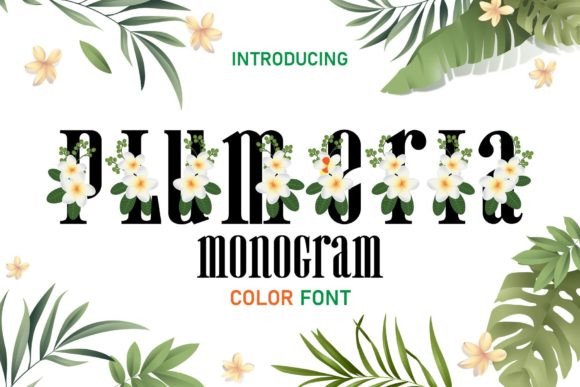
Behold, the Plumeria Monogram Font is your passport to a world of vibrant charm! Fox7's brainchild, this font is a kaleidoscope of hues, perfect for conjuring up that summer feeling, with its infectious brightness and captivating beauty.
Adorn your wedding invitations and stationary with its radiant colors, igniting a spark that will illuminate your special day. Imagine your social media posts brimming with charisma, or your greeting cards bursting with warmth as this font's allure captivates and delights.
Unleash its magic in crafting logos that radiate joy or branding that emanates energy. Let it be the muse that inspires your creative endeavors, transforming them into masterpieces that demand attention. See your designs leap off the screen with a vibrancy that's magnetic, leaving a lasting impression on all who behold it.
This Plumeria Monogram Font isn't just a font; it's a gateway to expression, a tool to unleash your creativity, and an ally in your quest for captivating designs. It's more than just a collection of letters; it's an invitation for your imagination to soar.
Dive into the world of color with the Plumeria Monogram Font and embark on a journey of artistic discovery. Embrace its versatility, let your creativity flow, and watch as your designs blossom into resplendent expressions of your innermost visions.